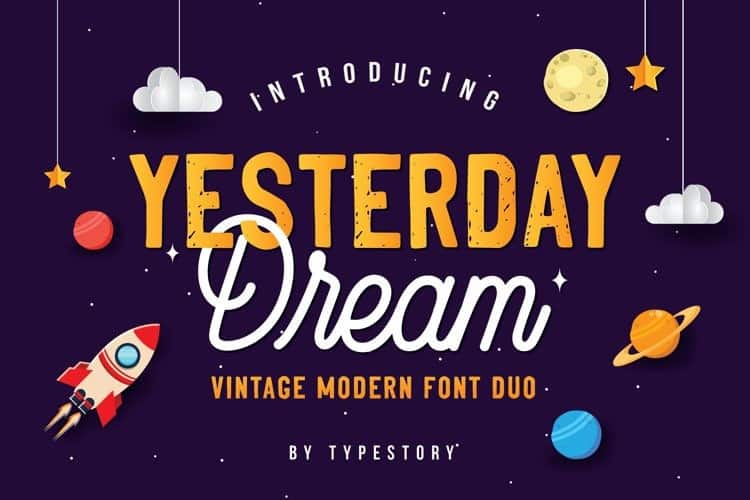
Yesterday Dream Font Duo
Yesterday Dream Font, a cute new duo that combines a display sans font with a handwritten script! They pair together perfectly and can be used in a variety of designs.
Yesterday Dream is suitable for modern designs such as website main page, logotype, badge logo design, quotes etc.